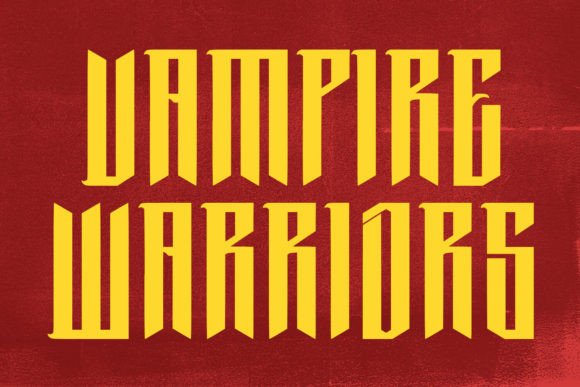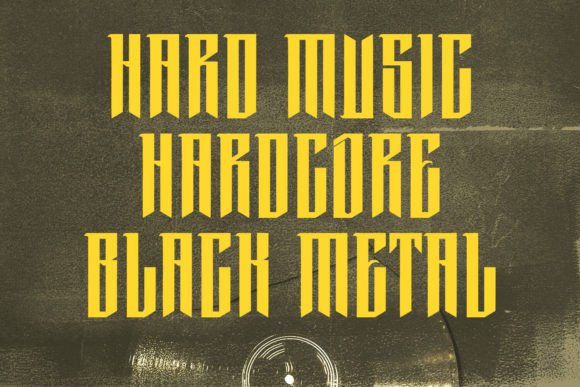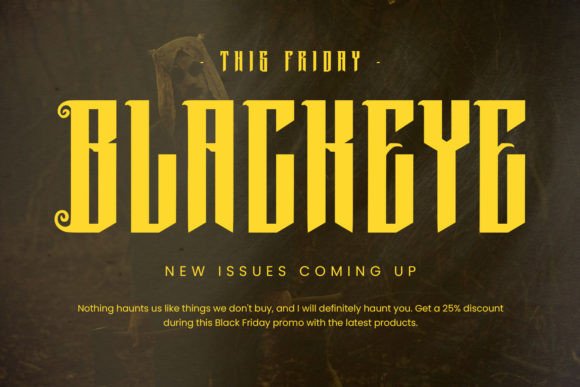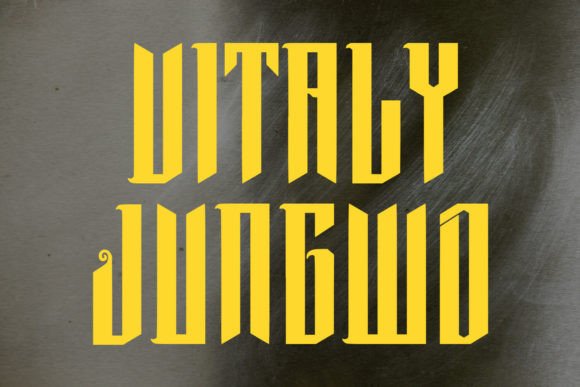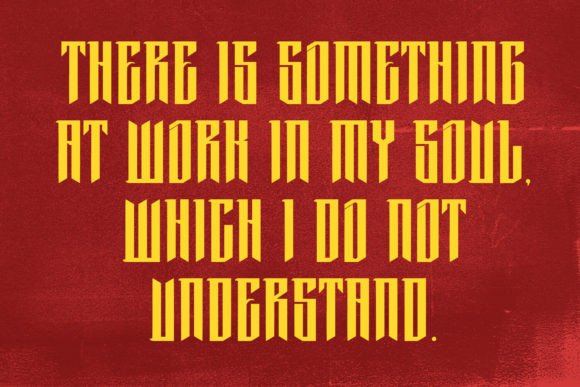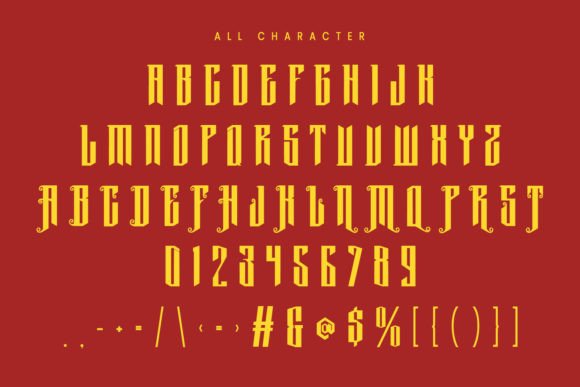
Introduction to Pholest Font
Pholest is a scary and bold font with a unique, eerie look.
It’s perfect for Halloween or horror-themed designs The letters are jagged and uneven, adding to the spooky feel.
Key Features of Pholest Font
Why Choose Pholest Font?
Pholest Font offers exceptional quality and versatility, making it a valuable addition to your design toolkit. Whether you’re creating for personal projects or commercial use, Pholest Font delivers professional results.